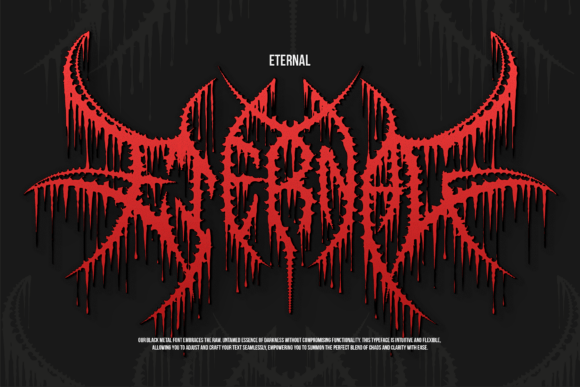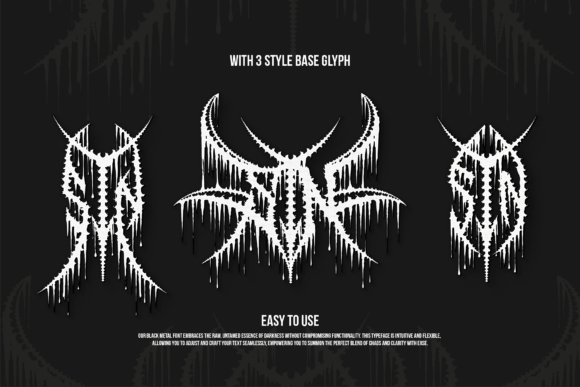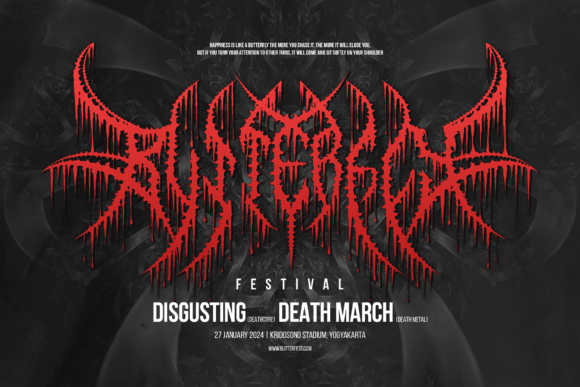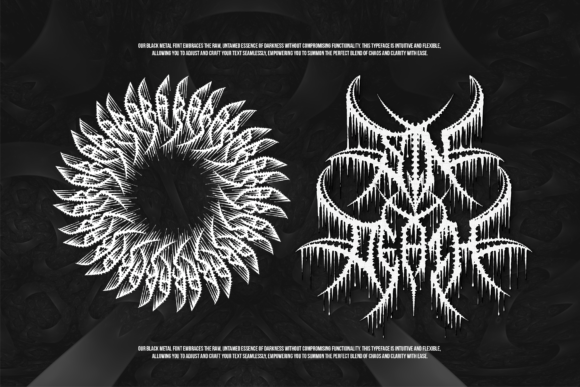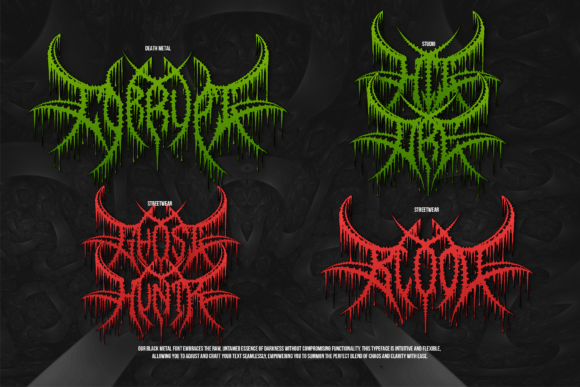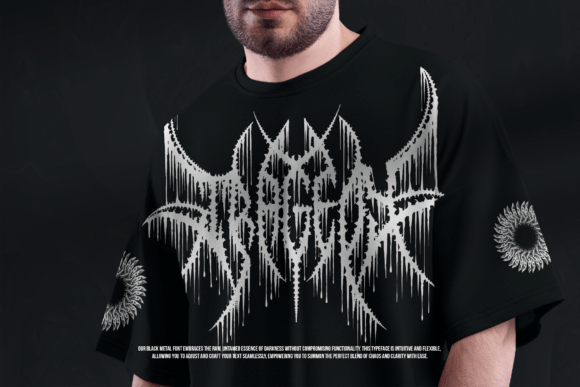
Grievance Font: Unleash the Power of Bold and Intense Black Metal Typography
In the realm of typography, few fonts evoke the same level of intensity and rebellion as the Grievance font. This bold and intense black metal font is designed to make a statement, with sharp, jagged edges and dark, dramatic lettering that exudes a powerful, unapologetic attitude. Whether you’re a designer, craftsperson, or simply someone who appreciates the aesthetic of heavy metal music, Grievance font is an excellent choice for projects that demand an edgy, heavy-metal look.
The Inspiration Behind Grievance Font
Grievance font draws inspiration from the world of heavy metal music, where bold, attention-grabbing typography is a staple of album covers, band logos, and merchandise. The font’s creator aimed to capture the essence of this genre, with its characteristic sharp edges, pointed serifs, and aggressive lettering style. The result is a font that looks like it was ripped straight from the pages of a metal music magazine or the cover of a iconic album.
Key Features of Grievance Font
So, what makes Grievance font so unique? Here are some of its key features:
- Bold and intense: Grievance font is designed to make a statement, with bold, chunky letters that demand attention.
- Sharp, jagged edges: The font’s sharp edges and pointed serifs give it a rough, unpolished look that’s perfect for heavy metal-inspired designs.
- Dark, dramatic lettering: Grievance font features dark, rich lettering that’s perfect for creating designs that exude a sense of drama and intensity.
- Rebellious feel: The font’s overall style gives off a powerful, rebellious vibe that’s perfect for designs that need to make a bold statement.
Uses for Grievance Font
Grievance font is an incredibly versatile typeface that can be used in a wide range of design projects, including:
- Band logos and merchandise: Grievance font is perfect for creating bold, eye-catching logos and merchandise for heavy metal bands.
- Album covers and posters: The font’s dark, dramatic style makes it an excellent choice for album covers, posters, and other promotional materials.
- Heavy metal-inspired art and design: Grievance font can be used to create stunning artwork, from tattoos to illustrations, that showcase a heavy metal aesthetic.
- Typography-focused designs: The font’s bold, chunky letters make it an excellent choice for designs that focus on typography, such as quotes, posters, and flyers.
Tips for Using Grievance Font
To get the most out of Grievance font, here are some tips to keep in mind:
- Use it sparingly: Grievance font is bold and attention-grabbing, so use it sparingly to avoid overwhelming your design.
- Pair it with contrasting fonts: Pair Grievance font with clean, simple fonts to create visual contrast and make your design stand out.
- Experiment with colors: Grievance font looks great in bold, bright colors, but don’t be afraid to experiment with different color schemes to find the perfect fit for your design.
Grievance font is a powerful, intense typeface that’s perfect for designers and craftspersons who want to add a touch of heavy metal attitude to their work. With its bold, jagged edges and dark, dramatic lettering, this font is sure to make a statement in any design project. Whether you’re creating band logos, album covers, or simply want to add some edge to your typography-focused designs, Grievance font is an excellent choice.